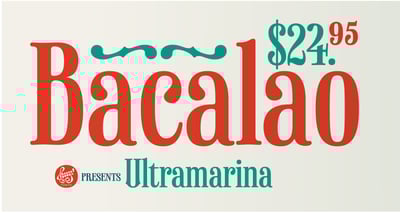
Ultramarina
Ultramarina font
Ultramarina Font Family was designed by Juanjo Lopez and published by Huy!Fonts. Ultramarina contains 1 styles and family package options. Halfway between nineteenth century display wood letters and the American grotesk sans-serif of the early twentieth, we can find Ultramarina, a display font for use in large body headlines, which show its power of attraction to quality food, the country’s legume, and gentlemen with a mustache and apron.Ultramarine has been redesigned in 2025 with a better design and a wider language coverage.